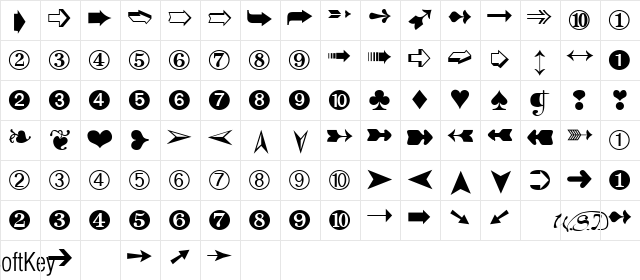
Dingbats2 Regular
Design Context for Dingbats2
Dingbats2 is a composed and adaptable typeface that performs quietly and consistently across a wide range of design contexts.